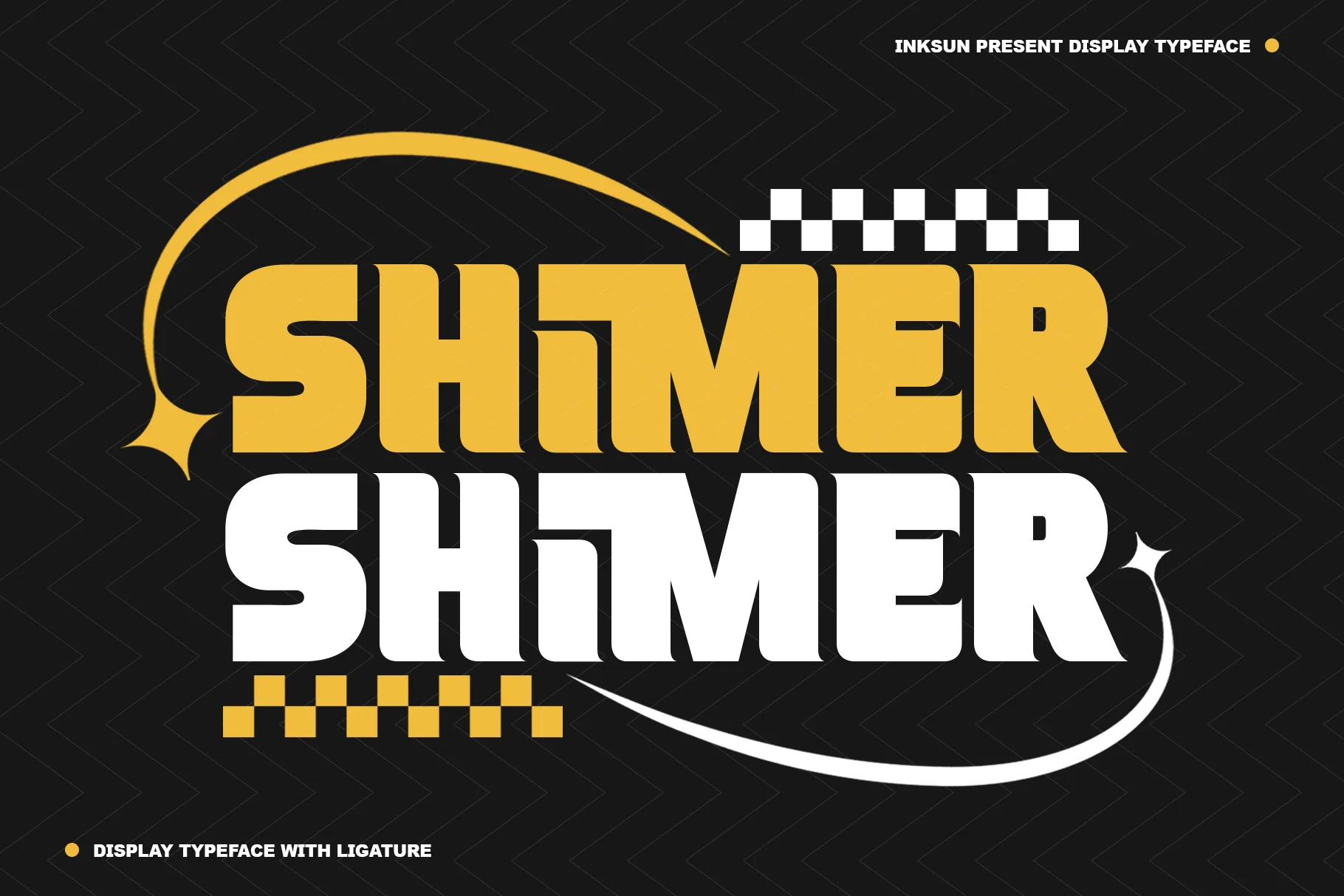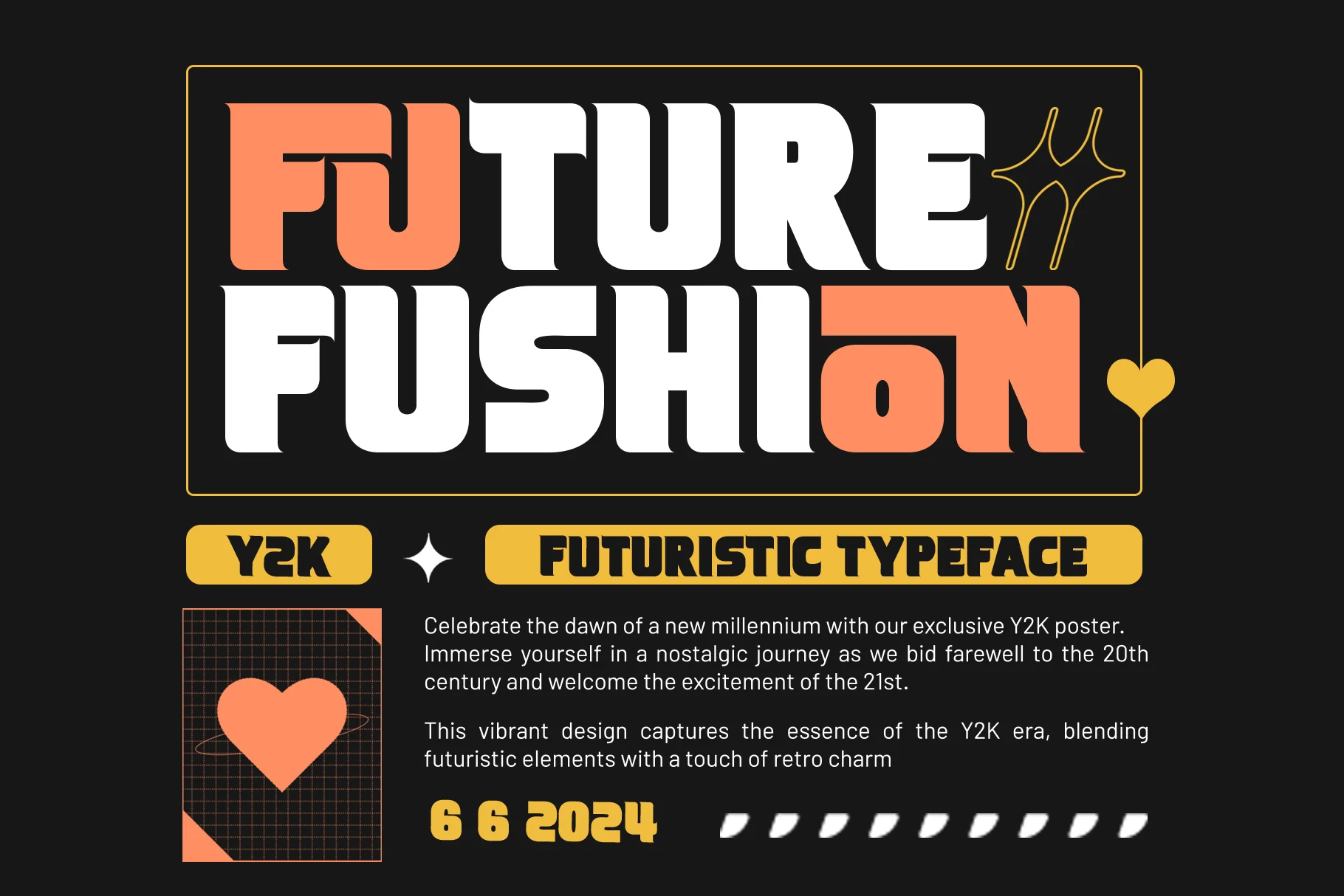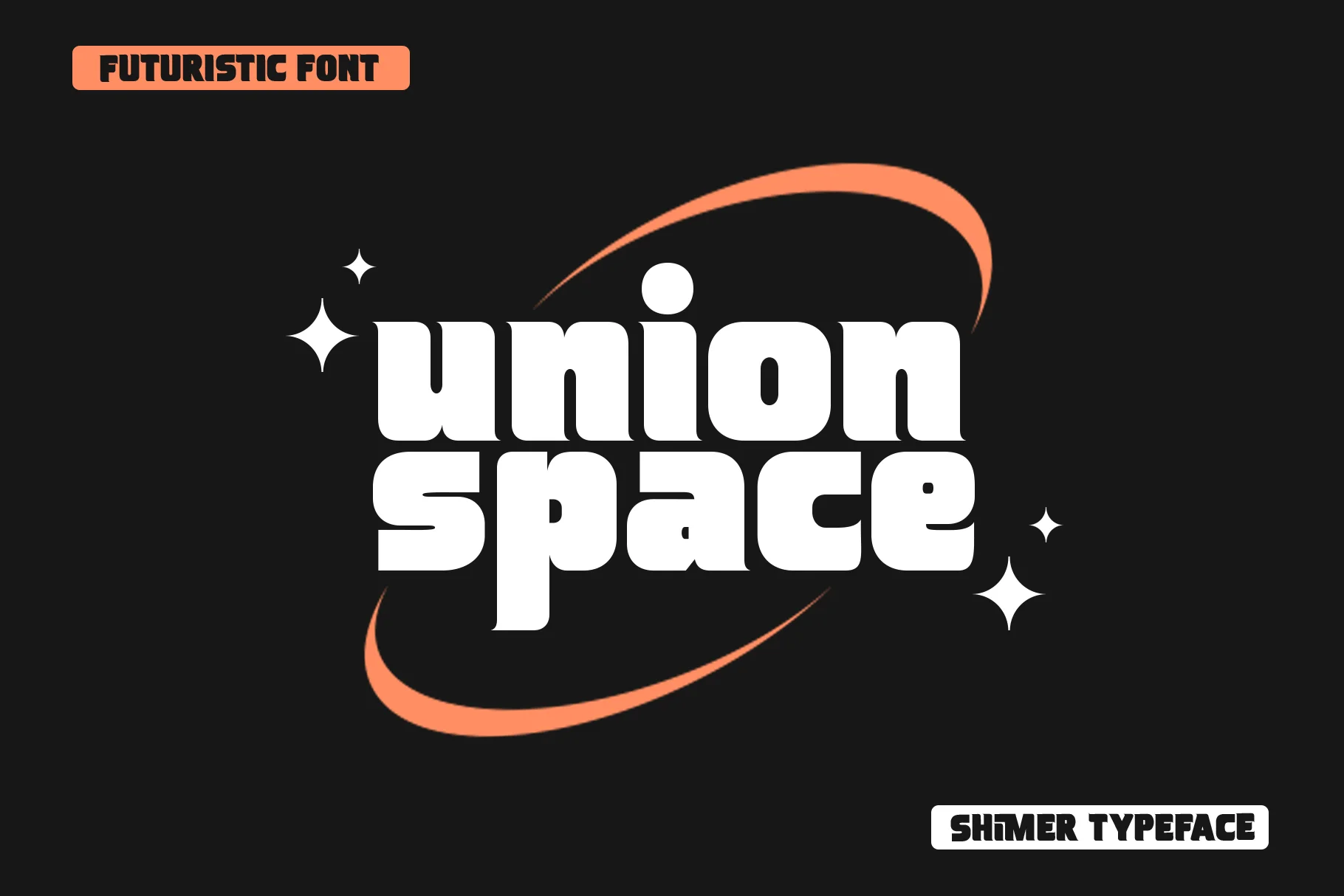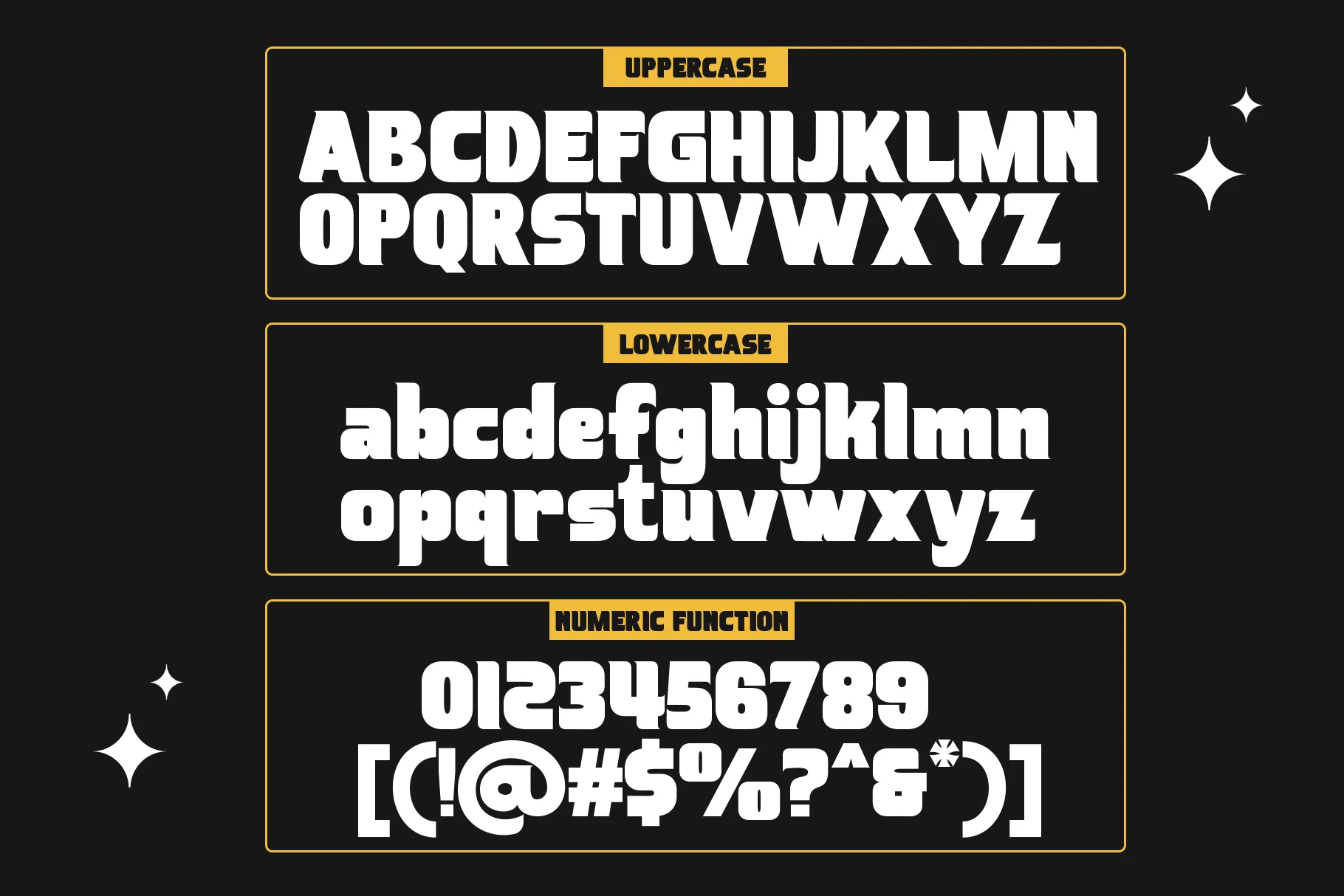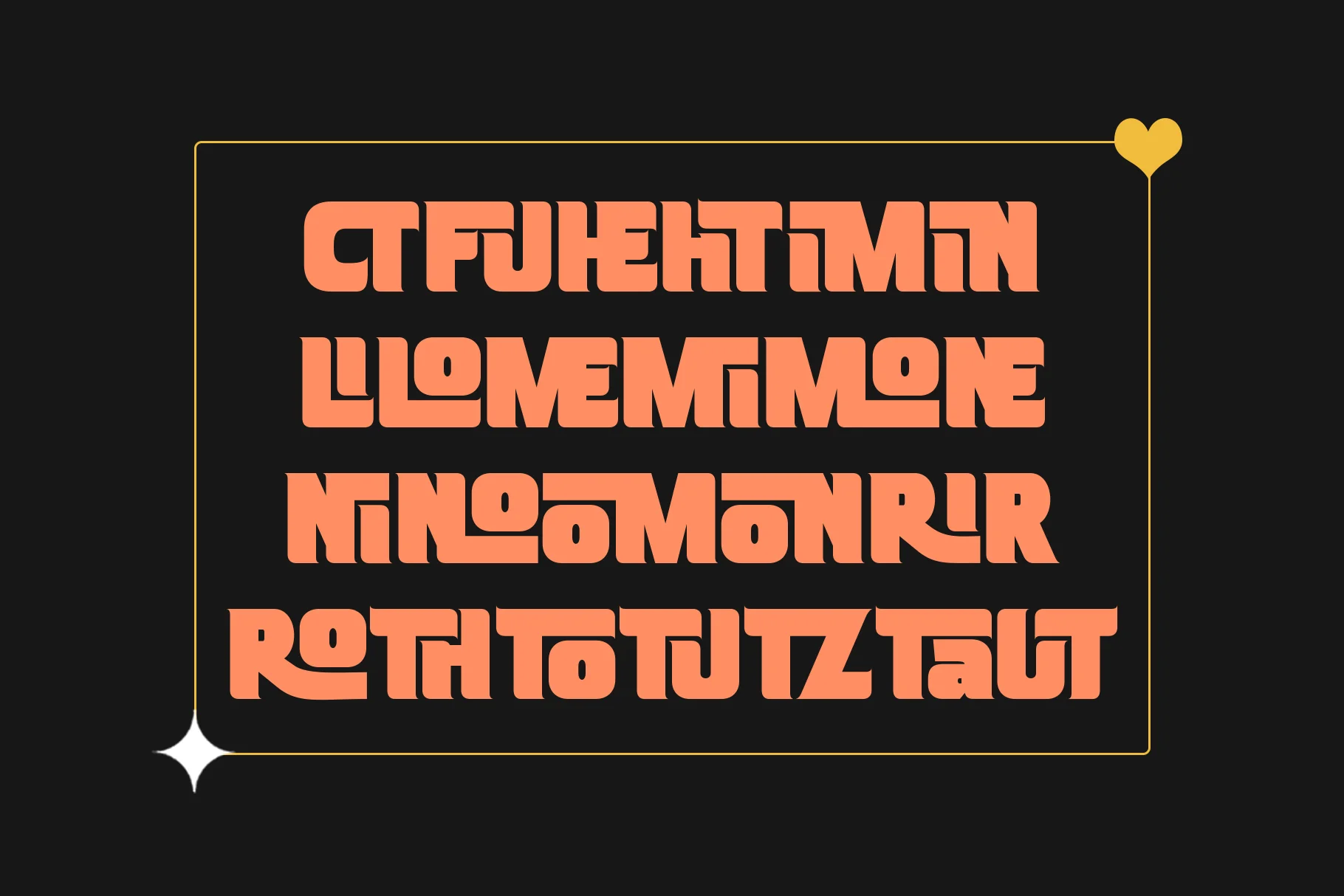
Shimer
Shimer is a bold sans serif display typeface that is strong, dynamic, and full of character. This font is designed with bold letterforms, rounded corners, and boldly cut corners, creating an energetic, modern, and sporty impression.
Shimer's main uniqueness lies in the ligatures and custom details on some characters, which create a flowing visual flow and make the typography feel more lively and expressive. The large, solid proportions of the letters make this font stand out when used as a headline or main design element.
With strong visual contrast and a stable letter structure, Shimer remains easy to read despite its decorative style. This font is perfect for projects that require a bold, attractive, and eye-catching impression.